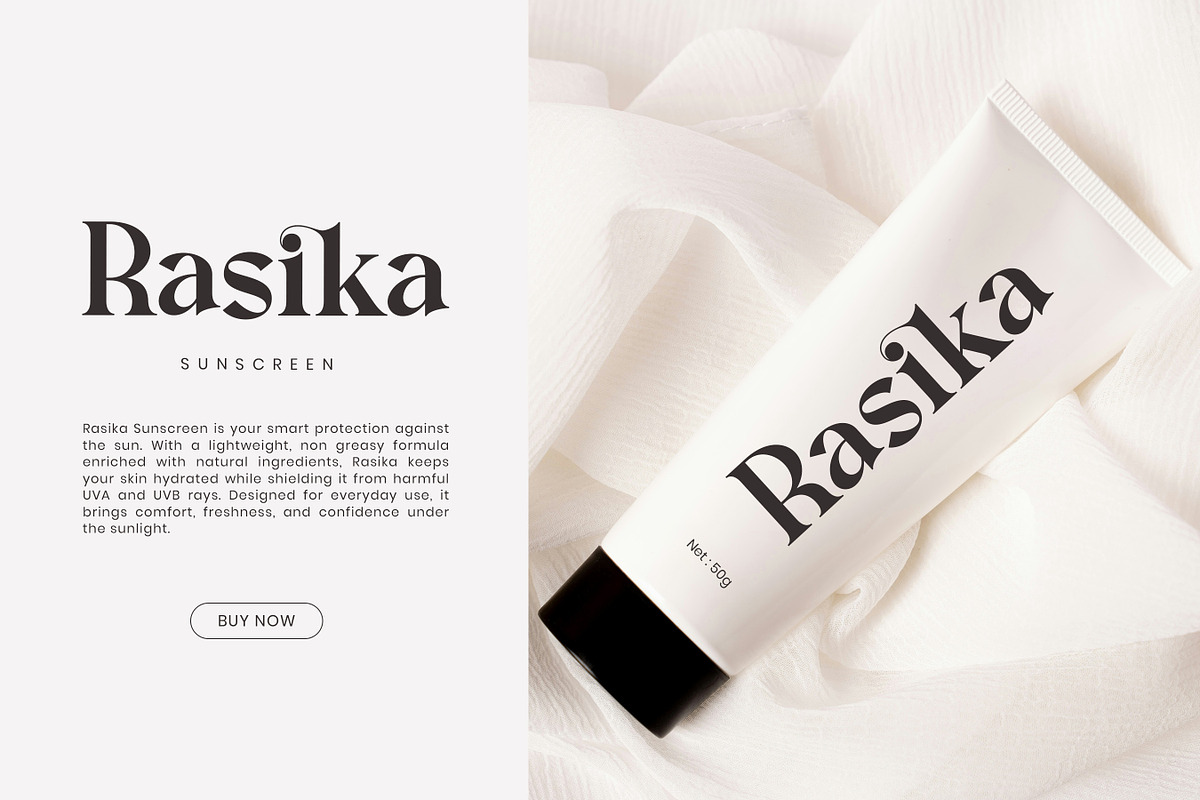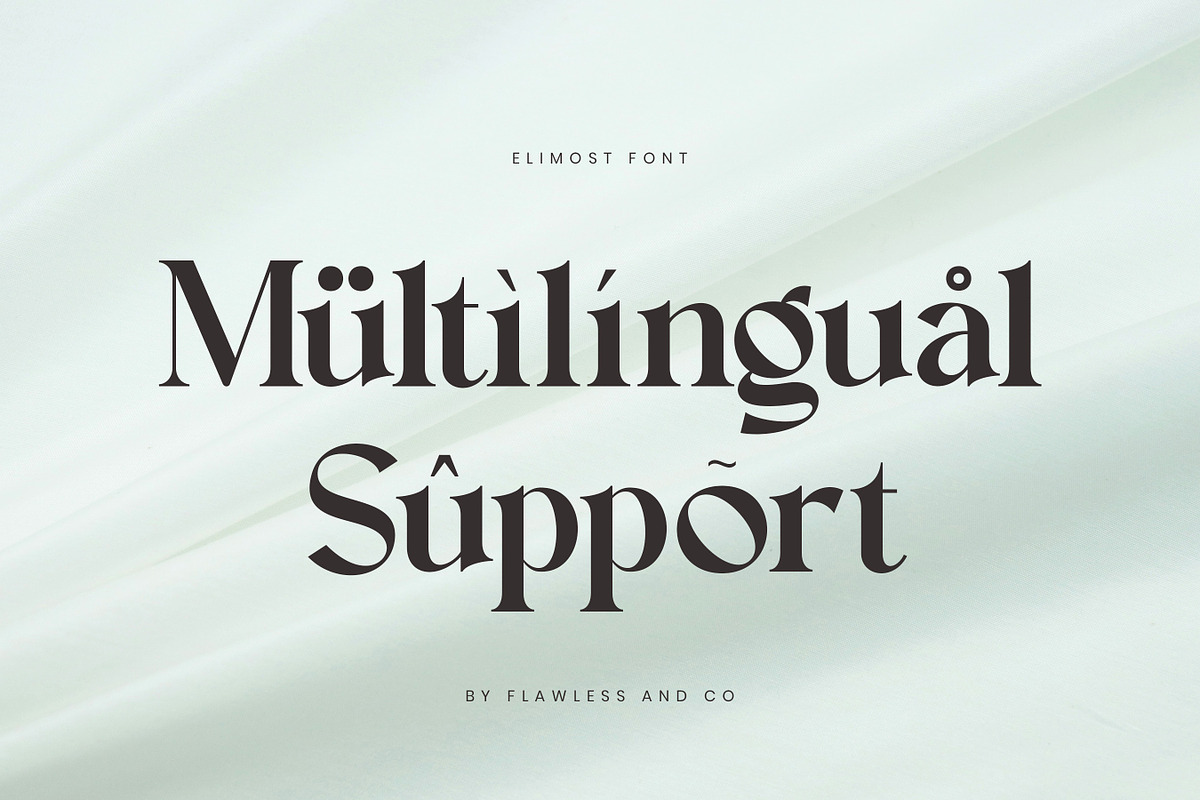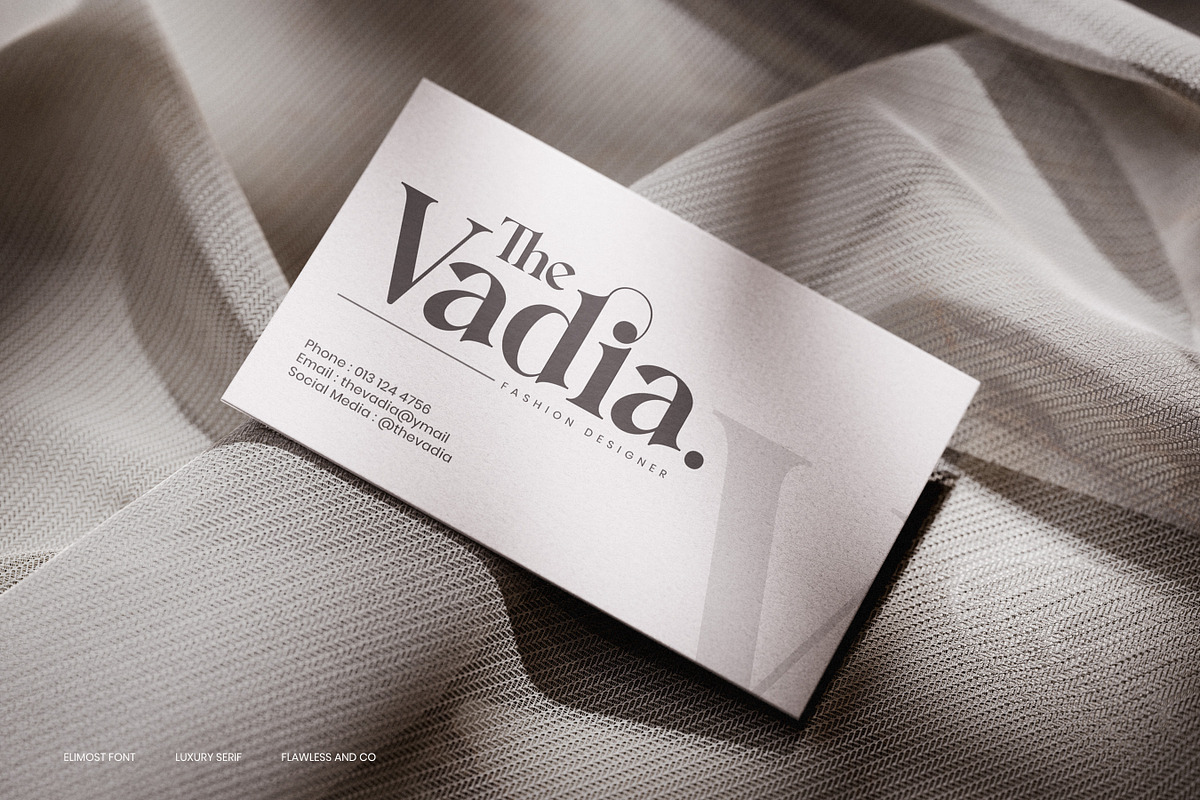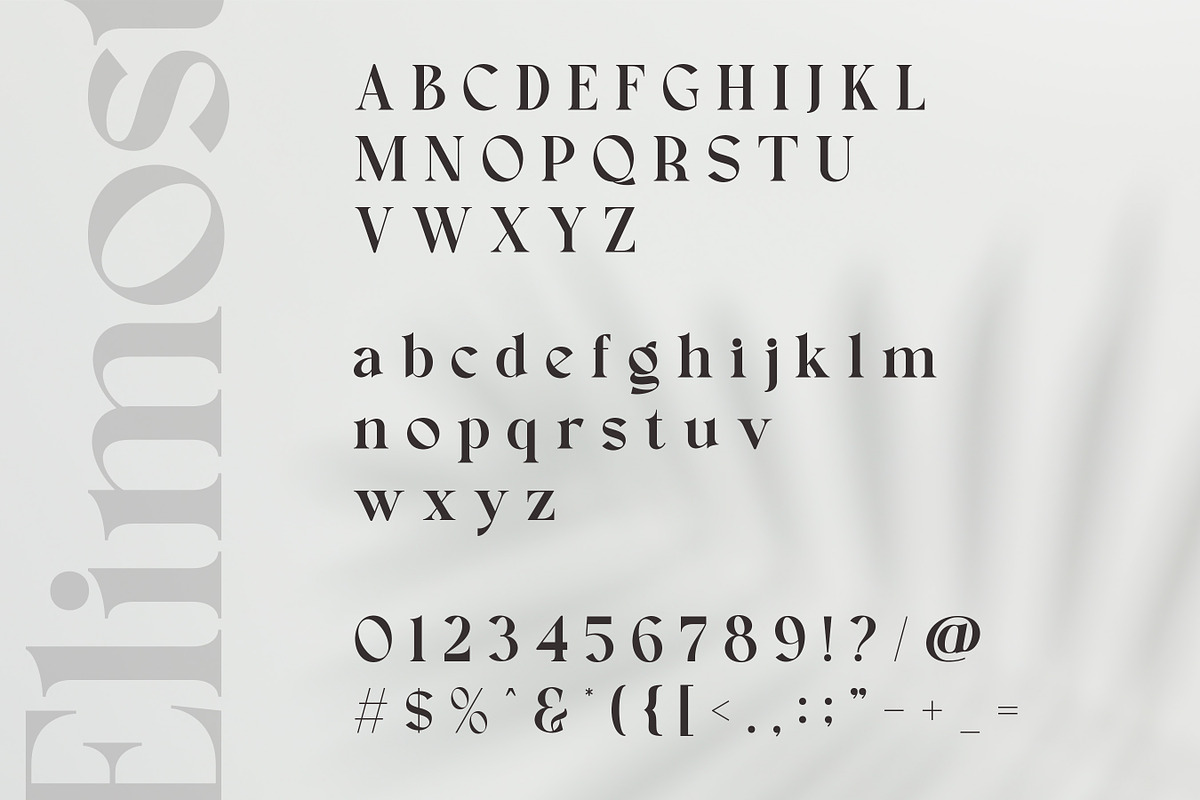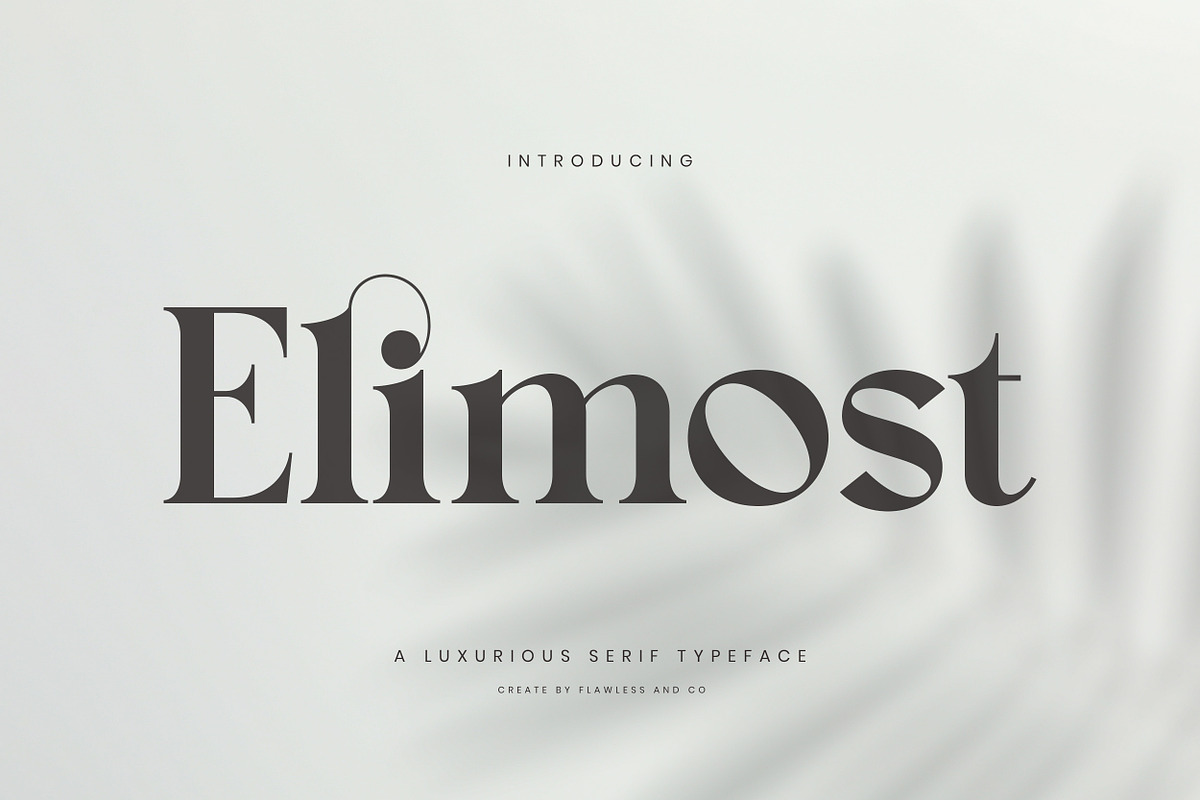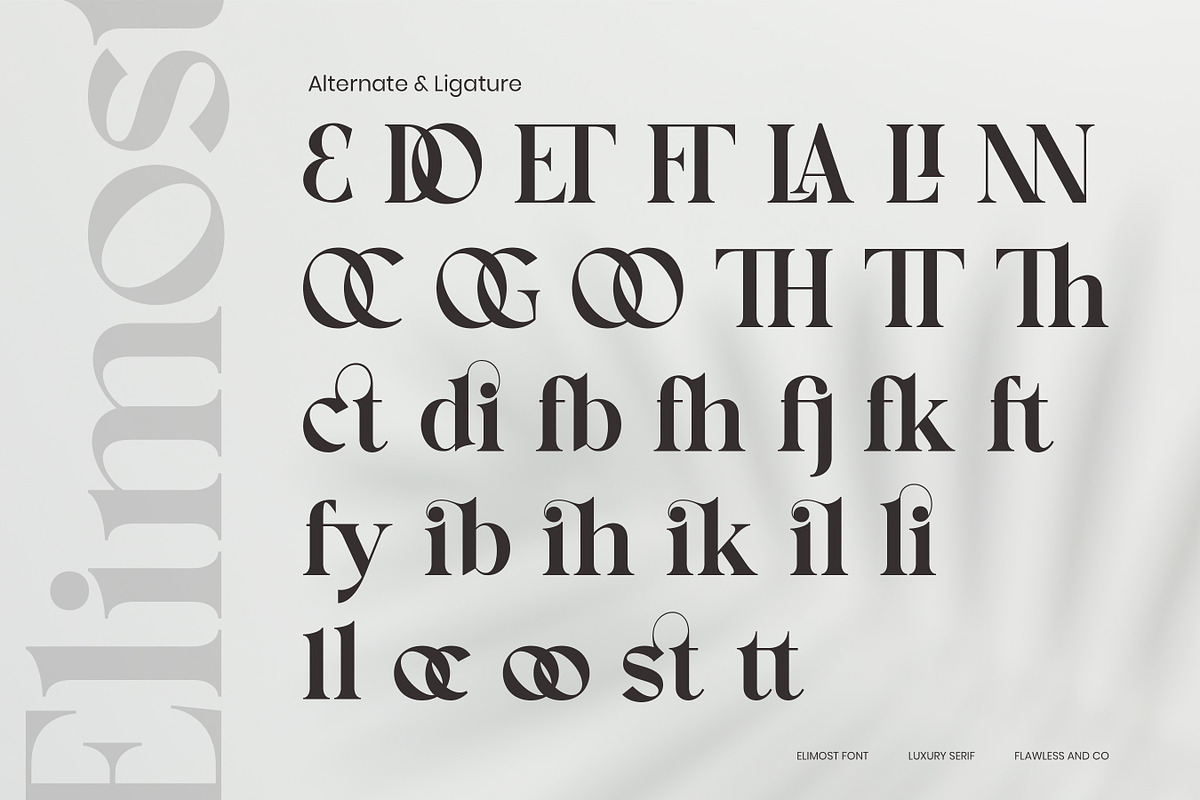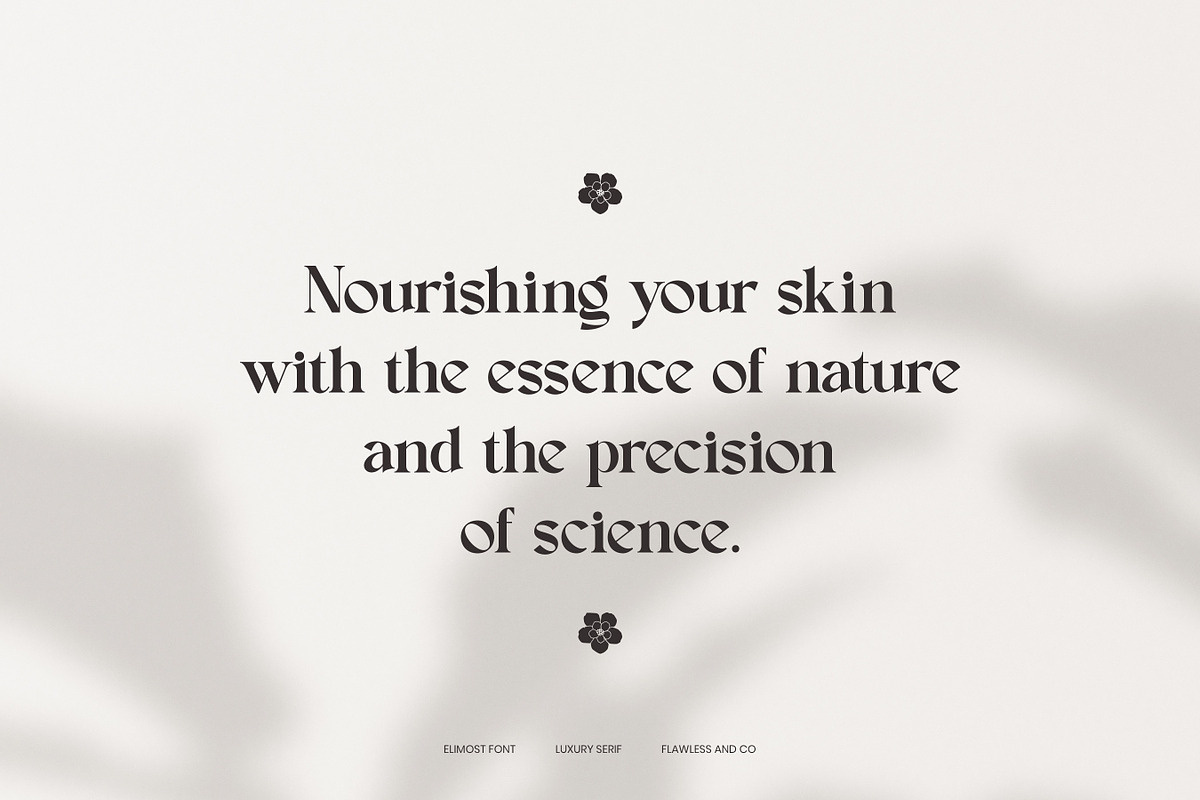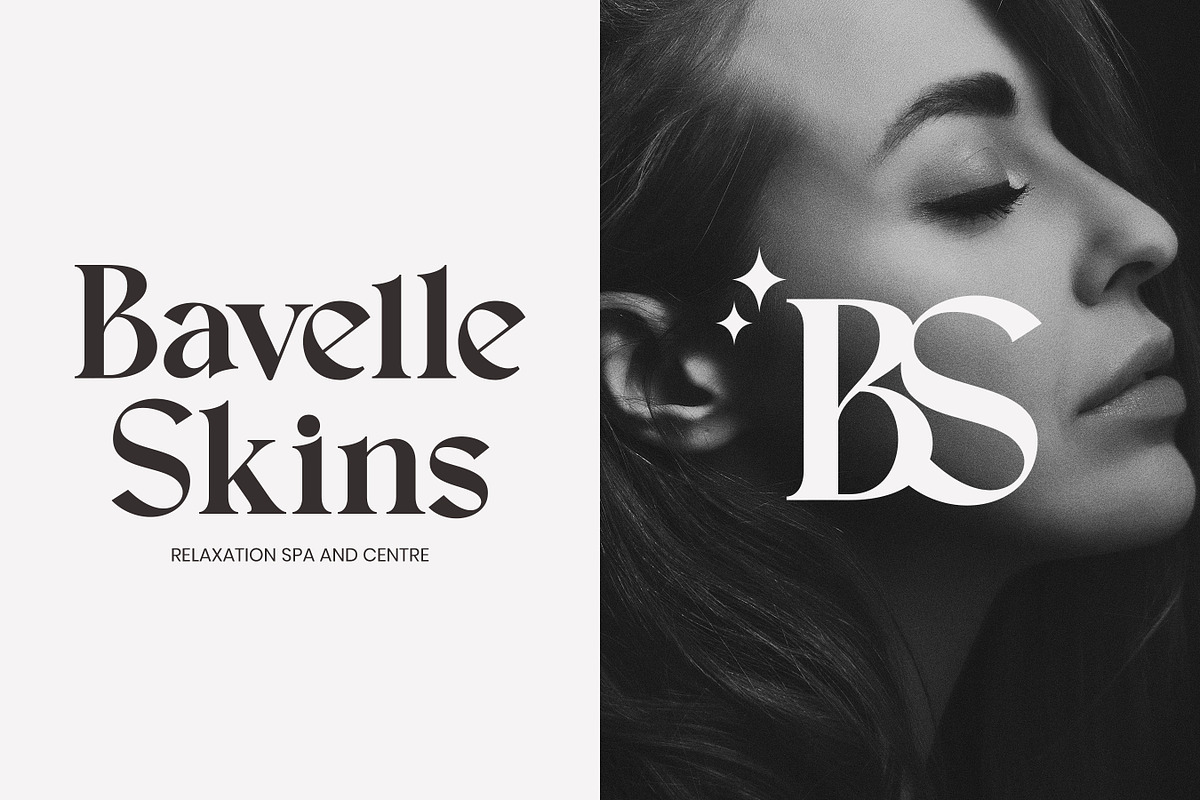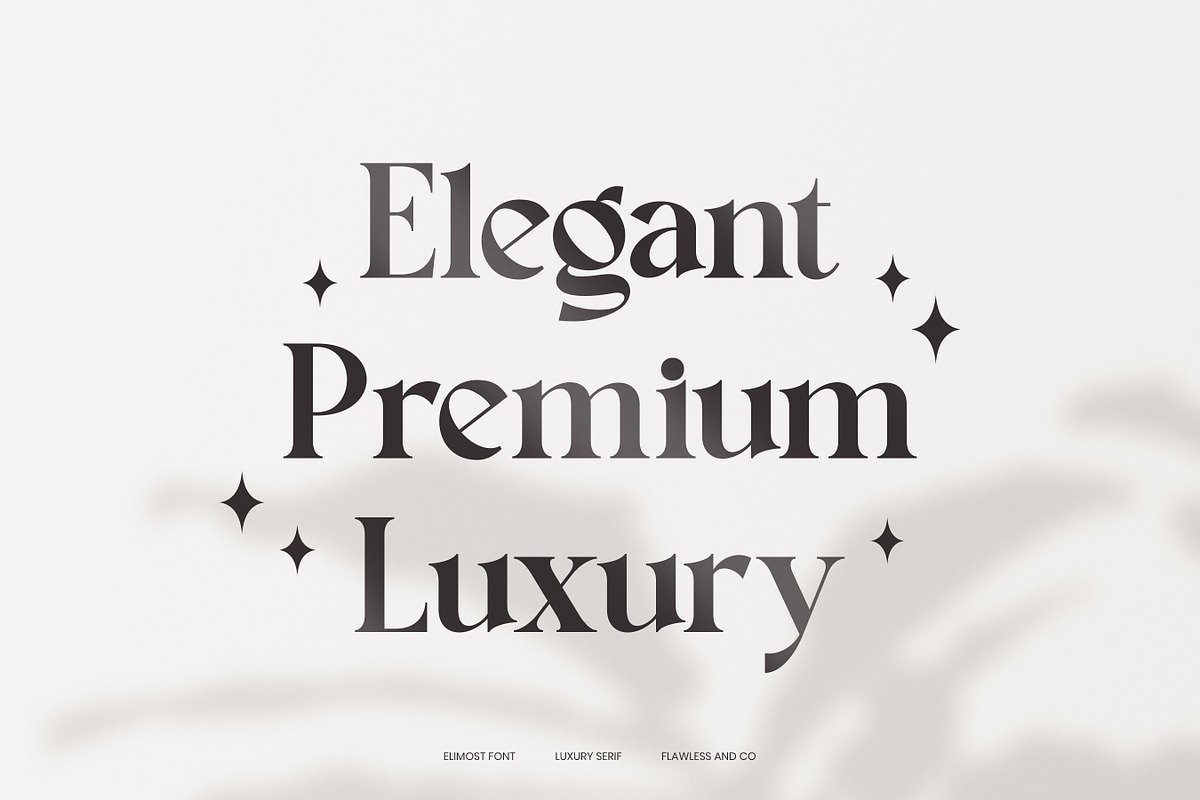
Elimost - Luxury Serif Font
Elimost - Luxury Setif Font
Elimost is a luxury serif typeface that embodies sophistication, elegance, and timeless design. With its refined letterforms, graceful curves, and striking contrasts, Elimost is crafted to bring a premium and stylish feel to any project. Its luxurious aesthetic makes it the perfect choice for high-end branding, fashion editorials, elegant invitations, and upscale packaging. Designed with versatility in mind, Elimost balances modern beauty with classic charm, allowing designers to create works that stand out with confidence and refinement. Whether used for logos, headlines, or editorial layouts, Elimost delivers a sense of exclusivity and artistry that resonates across various design needs.
Who Should Use Elimost?
Elimost is ideal for creatives, designers, and brands who value sophistication and timeless style in their work. This font is perfect for:
- Luxury fashion designers aiming to create iconic brand identities
- Beauty and lifestyle brands seeking an elegant, premium look
- Editorial and magazine layouts that require refined, eye-catching headlines
- Wedding and event planners looking for graceful, stylish typography
- High-end product packaging that emphasizes exclusivity and class
A Must-Have Font for "Brand and Logo" Creators and Designers
Elimost is more than just a typeface—it’s a creative tool crafted to bring elegance, refinement, and timeless beauty to your projects. With its sophisticated serif style, Elimost empowers designers and brand creators to establish strong, memorable identities that exude luxury and professionalism. Whether for fashion, lifestyle, or premium business branding, this font ensures your work stands out with class and distinction.
Why Choose Elimost for "Brand and Logo" Projects?
Elimost is more than just a typeface—it’s a design statement. Its luxurious serif details bring sophistication, clarity, and timeless charm to any branding project. Whether you’re creating a logo for a high-end brand, designing packaging that exudes elegance, or crafting editorial layouts that demand attention, Elimost ensures your work stands out with premium quality and style.
Suitable For
- Brand identities and luxury logo design
- Editorial layouts, magazines, and fashion publications
- Wedding invitations & elegant stationery
- Product packaging & premium labels
- Social media graphics & lifestyle branding
- Business presentations & corporate materials